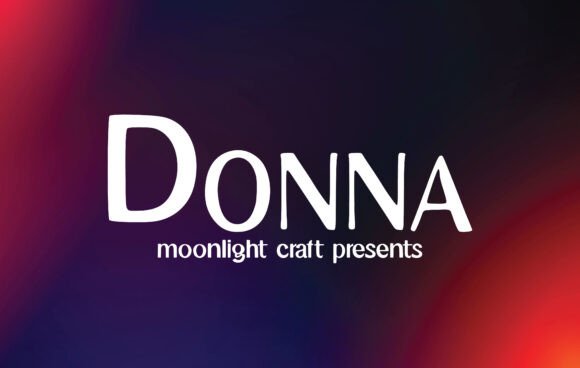
Discover the Versatility of Donna Font: Elevate Your Designs with Style and Personality
In the world of typography, finding the perfect font that combines versatility, eye appeal, and readability can be a daunting task. However, if you’re looking for a go-to favorite that can bring your creative ideas to life, look no further than the Donna Font. This exceptional font is designed to be a staple in every designer’s toolkit, offering a unique blend of clarity, style, and personality that makes it perfect for a wide range of applications.
The Characteristics of Donna Font
So, what makes Donna Font stand out from the crowd? Here are some of its key characteristics:
- Versatility: Donna Font is incredibly versatile, making it suitable for various design projects, from magazine covers and t-shirts to social media posts, branding, wedding invitations, and greeting cards.
- Eye-catching: With its unique and stylish design, Donna Font is sure to grab attention and leave a lasting impression on your audience.
- Readability: The font is clear and easy to read, making it an excellent choice for both titles and body text.
- Style and Personality: Donna Font brings a touch of style and personality to every design project, helping you to create unique and memorable visuals.
Uses of Donna Font
Donna Font is an incredibly versatile font that can be used in a wide range of design applications. Here are some of the ways you can use this amazing font:
Magazine Covers
Create stunning magazine covers that grab attention with Donna Font. Its eye-catching design and readability make it perfect for headlines and titles.
T-Shirts and Apparel
Take your t-shirt and apparel designs to the next level with Donna Font. Its stylish and versatile design makes it ideal for creating unique and memorable designs.
Social Media Posts
Elevate your social media presence with Donna Font. Use it to create engaging and eye-catching posts that stand out from the crowd.
Branding and Advertising
Establish a strong brand identity with Donna Font. Its versatility and style make it perfect for creating logos, taglines, and other branding materials.
Wedding Invitations and Greeting Cards
Add a touch of elegance and sophistication to your wedding invitations and greeting cards with Donna Font. Its readability and style make it perfect for creating beautiful and memorable designs.
Why Choose Donna Font?
With so many fonts available, why should you choose Donna Font? Here are some compelling reasons:
- Unique Design: Donna Font has a unique and stylish design that sets it apart from other fonts.
- High Readability: The font is clear and easy to read, making it perfect for both titles and body text.
- Versatility: Donna Font can be used in a wide range of design applications, making it a great addition to any designer’s toolkit.
- Time-Saving: With Donna Font, you can create stunning designs quickly and easily, saving you time and effort.
Tips for Using Donna Font
Here are some tips for getting the most out of Donna Font:
- Experiment with Different Sizes: Donna Font looks great in various sizes, so don’t be afraid to experiment and find the perfect size for your design.
- Pair it with Other Fonts: Donna Font pairs well with other fonts, so try combining it with different fonts to create unique and interesting designs.
- Use it for Headlines and Body Text: Donna Font is perfect for both headlines and body text, making it a great choice for creating cohesive and stylish designs.
In conclusion, Donna Font is an exceptional font that offers a unique blend of versatility, eye appeal, and readability. Whether you’re designing magazine covers, t-shirts, social media posts, branding, wedding invitations, or greeting cards, this font is sure to bring your creative ideas to life. With its stylish design, high readability, and versatility, Donna Font is a great addition to any designer’s toolkit.